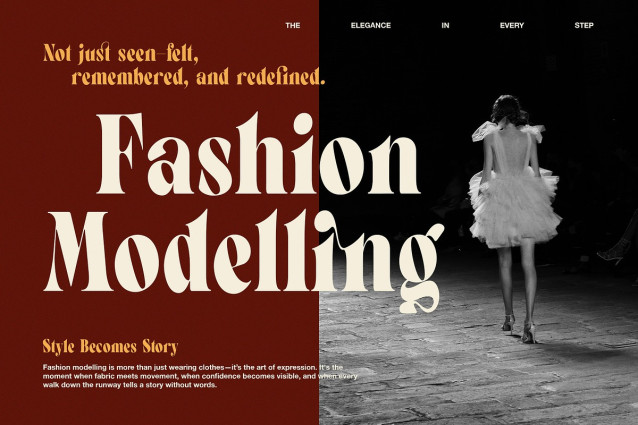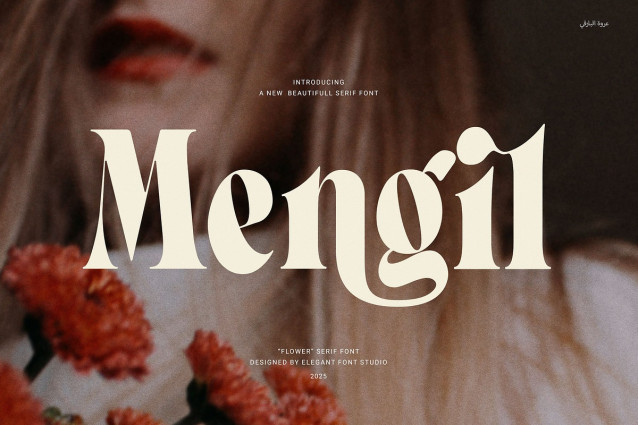
Mengil Font
Mengil Font – Elegant Serif Font combines modern sophistication with classic charm. Its proportional letterforms create balanced, clean typography that fits all branding needs. Additionally, the font includes functional ligatures that enhance text flow, making designs more attractive and polished. Whether you are working on logos, websites, magazines, layouts, product packaging, or advertisements, Mengil adds a refined, elegant touch to every project.
This versatile font is perfect for various industries, including boutiques, food, fashion, and corporate businesses. It ensures readability and style both in print and digital formats, making your message stand out clearly. Thanks to its smooth curves and well-crafted ligatures, Mengil elevates the overall aesthetic and professionalism of your design.